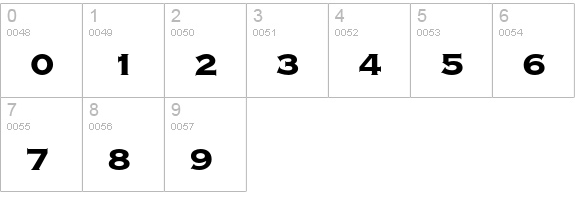
Copperplate Gothic Std 33 BC is a timeless and elegant font that exudes sophistication and professionalism. With its classic and refined letterforms, this typeface is perfect for adding a touch of sophistication to any project. The sharp serifs and clean lines of Copperplate Gothic Std 33 BC create a sense of precision and clarity, making it ideal for both formal and modern designs. What makes Copperplate Gothic Std 33 BC even more appealing is that it is available for free download at FontsMarket.com. This means that you can easily access this high-quality font and use it in your projects without any cost. Whether you're working on a branding project, a website design, or any other creative endeavor, Copperplate Gothic Std 33 BC is sure to elevate your work with its timeless charm and versatility. Download it today and add a touch of sophistication to your designs!